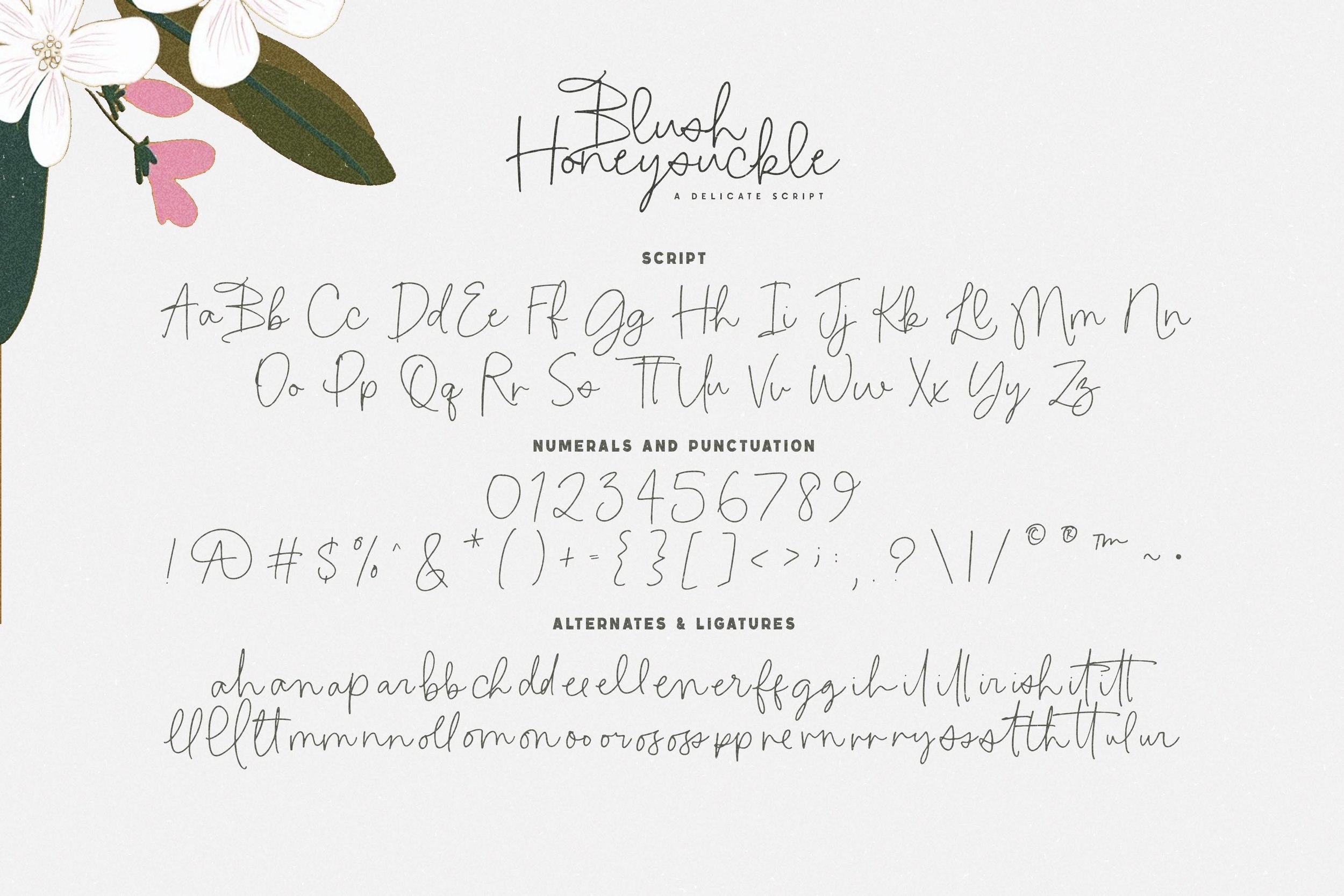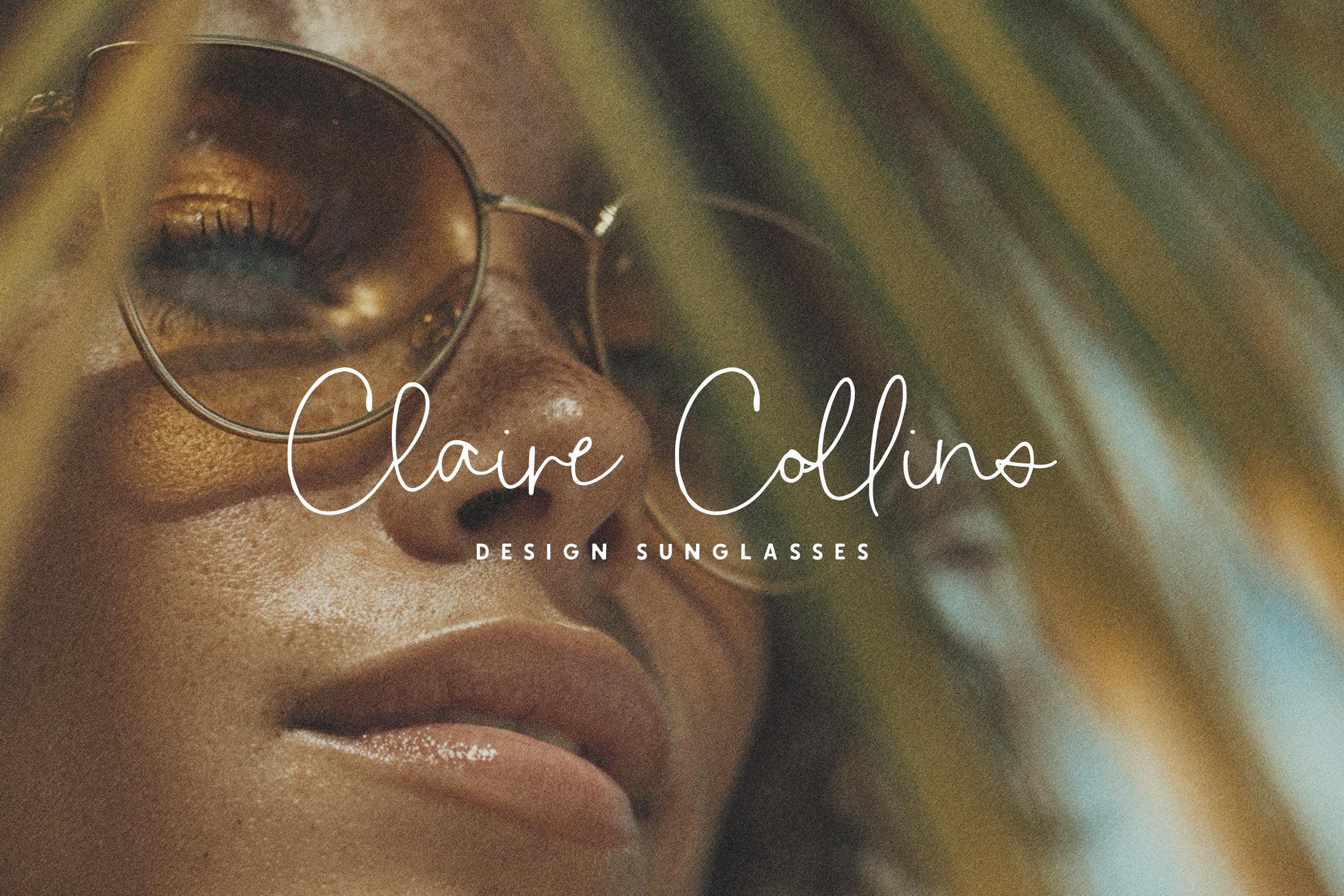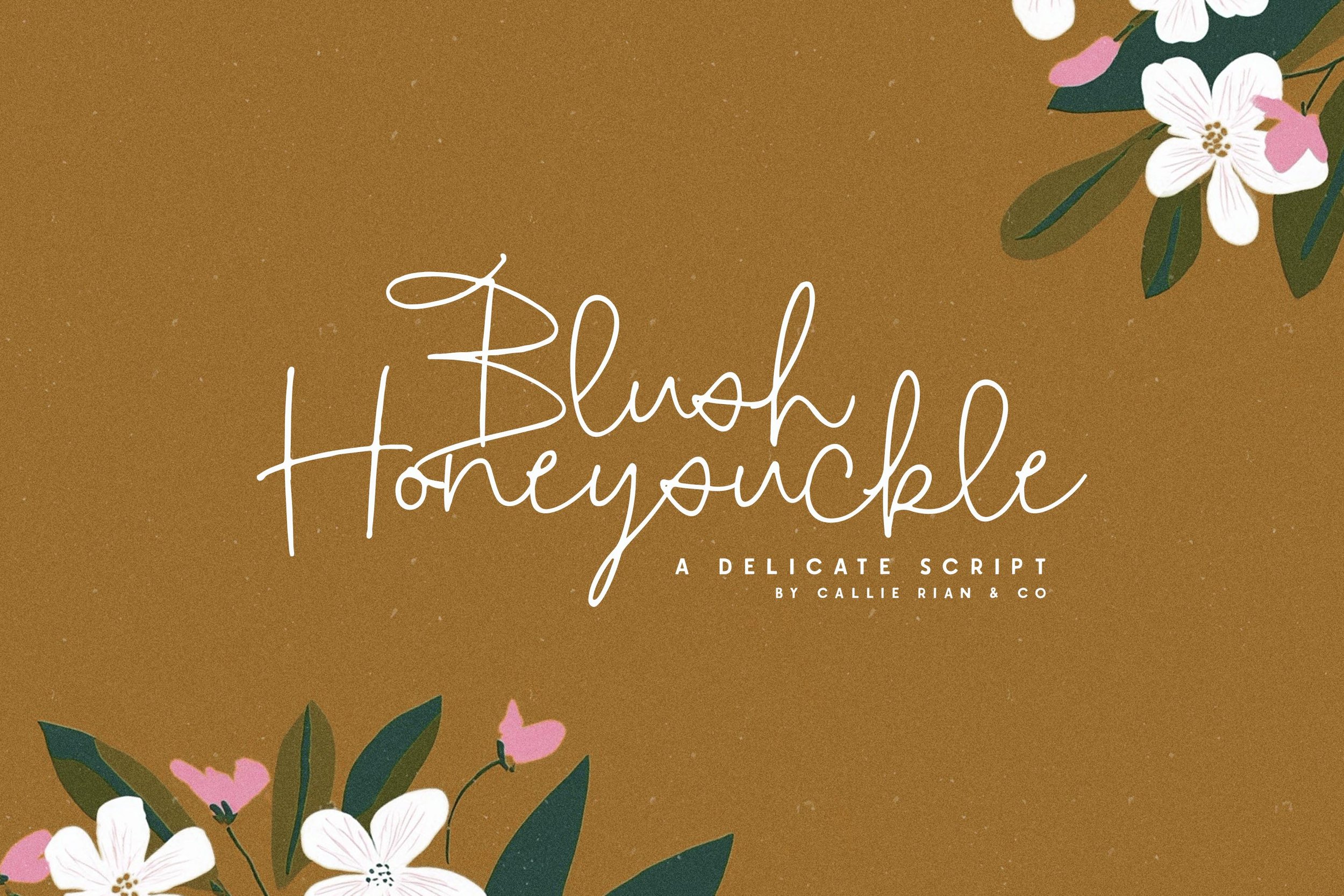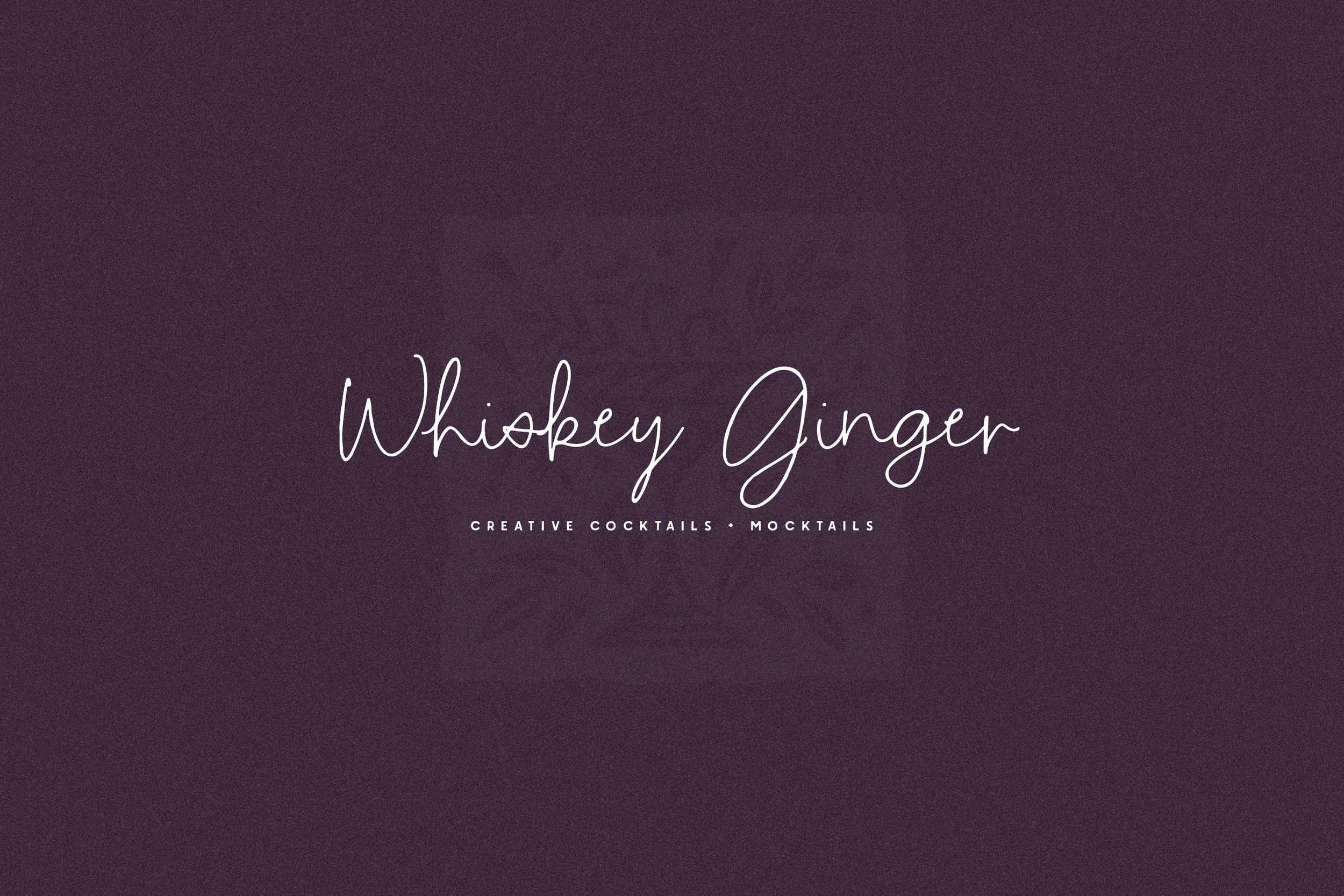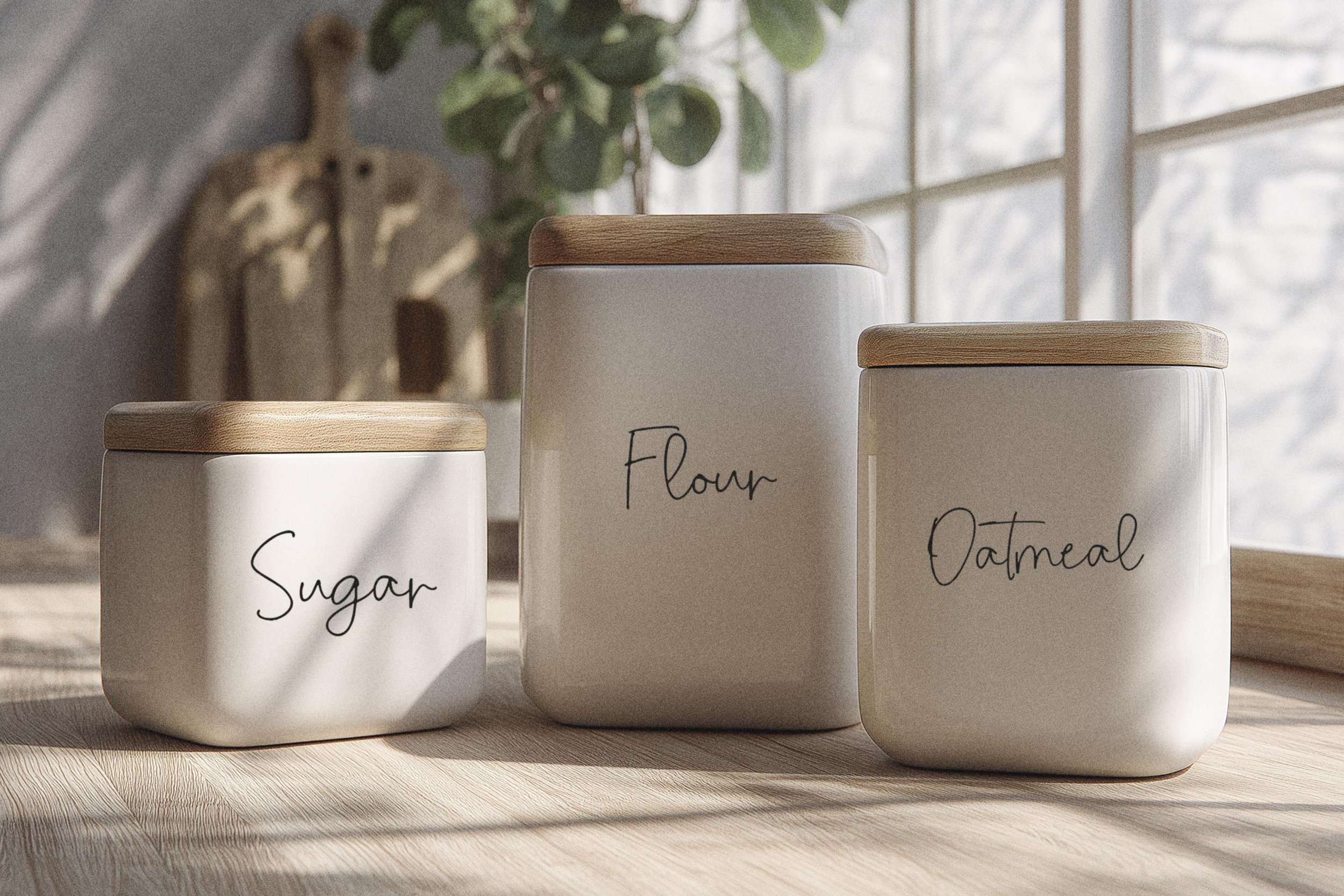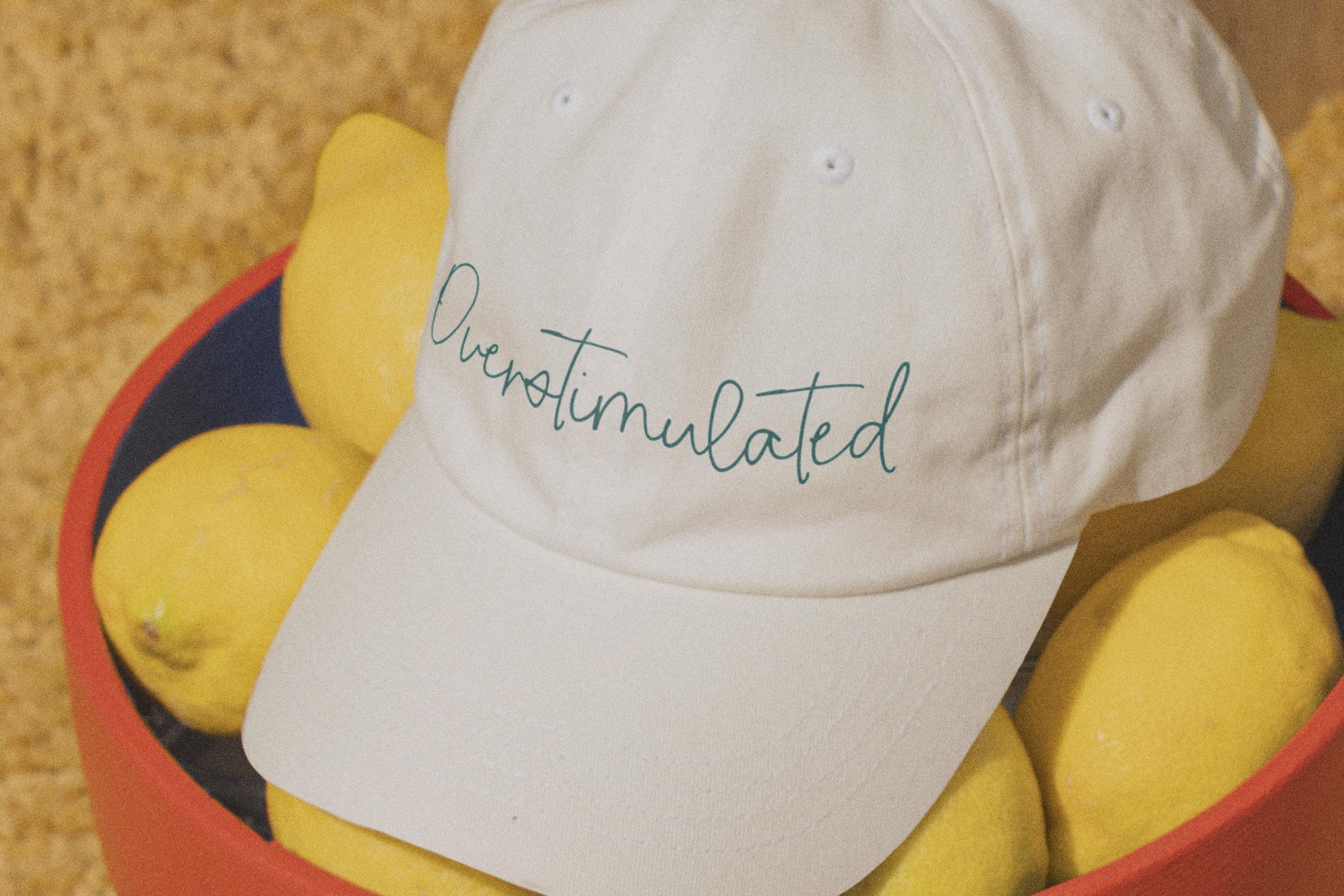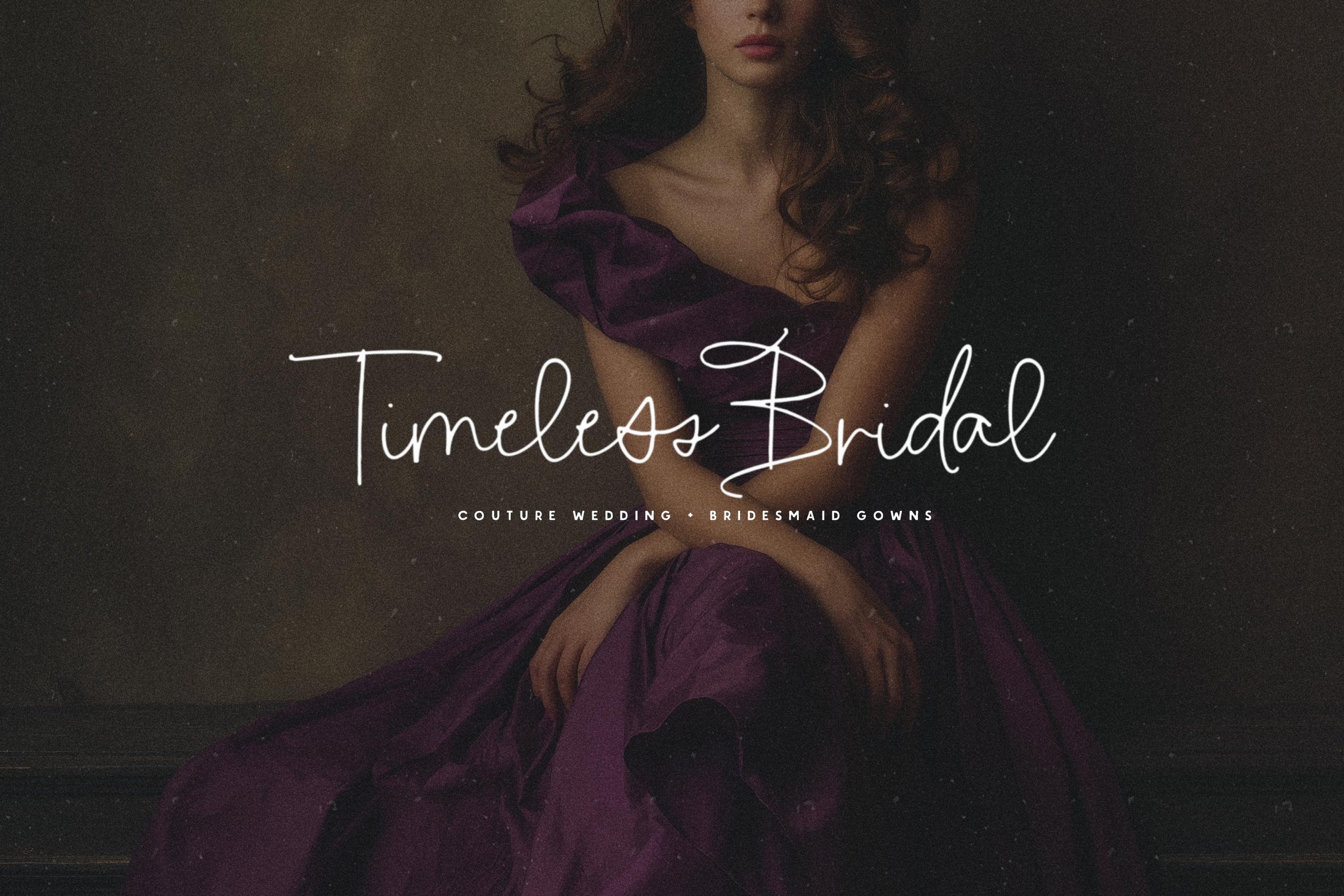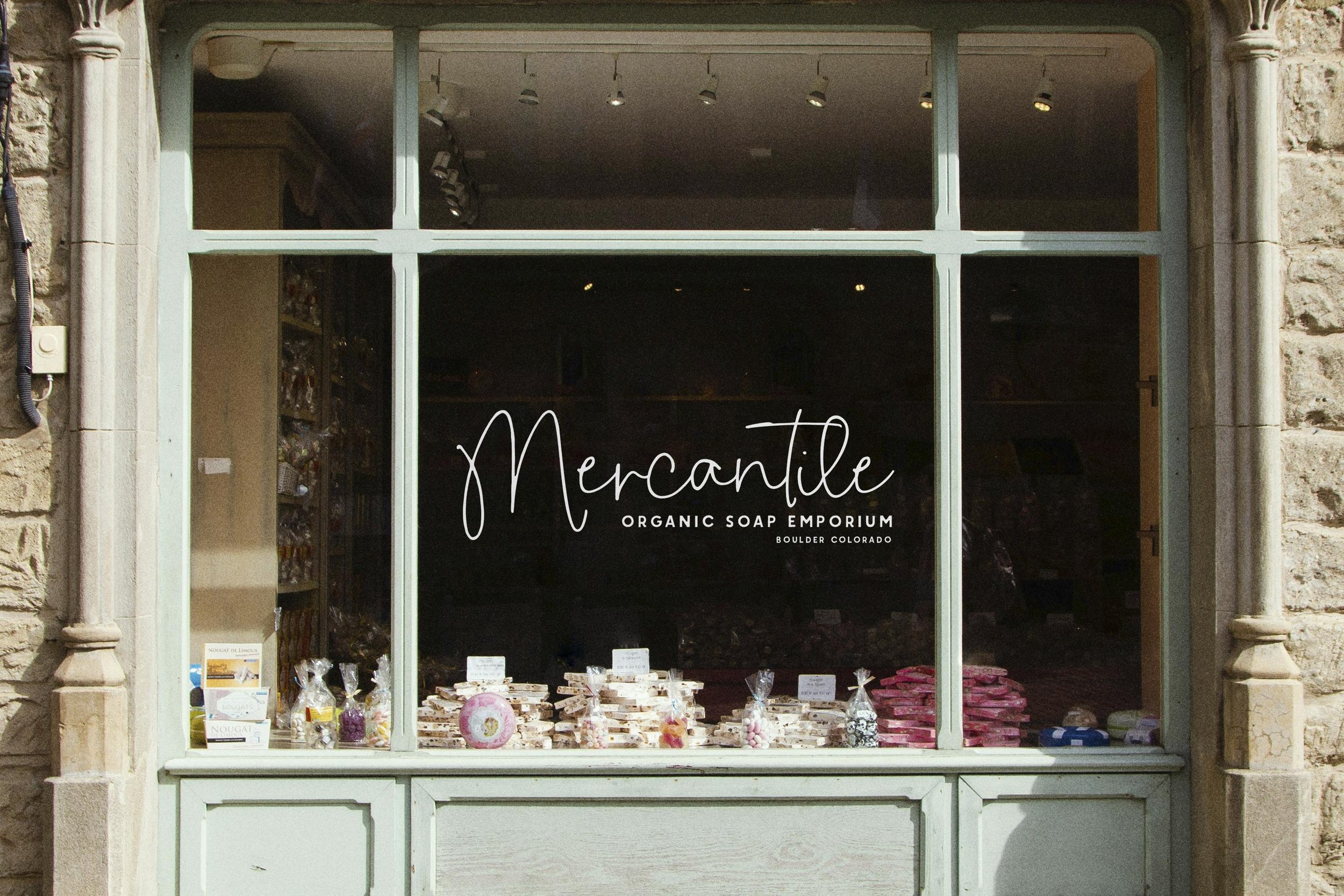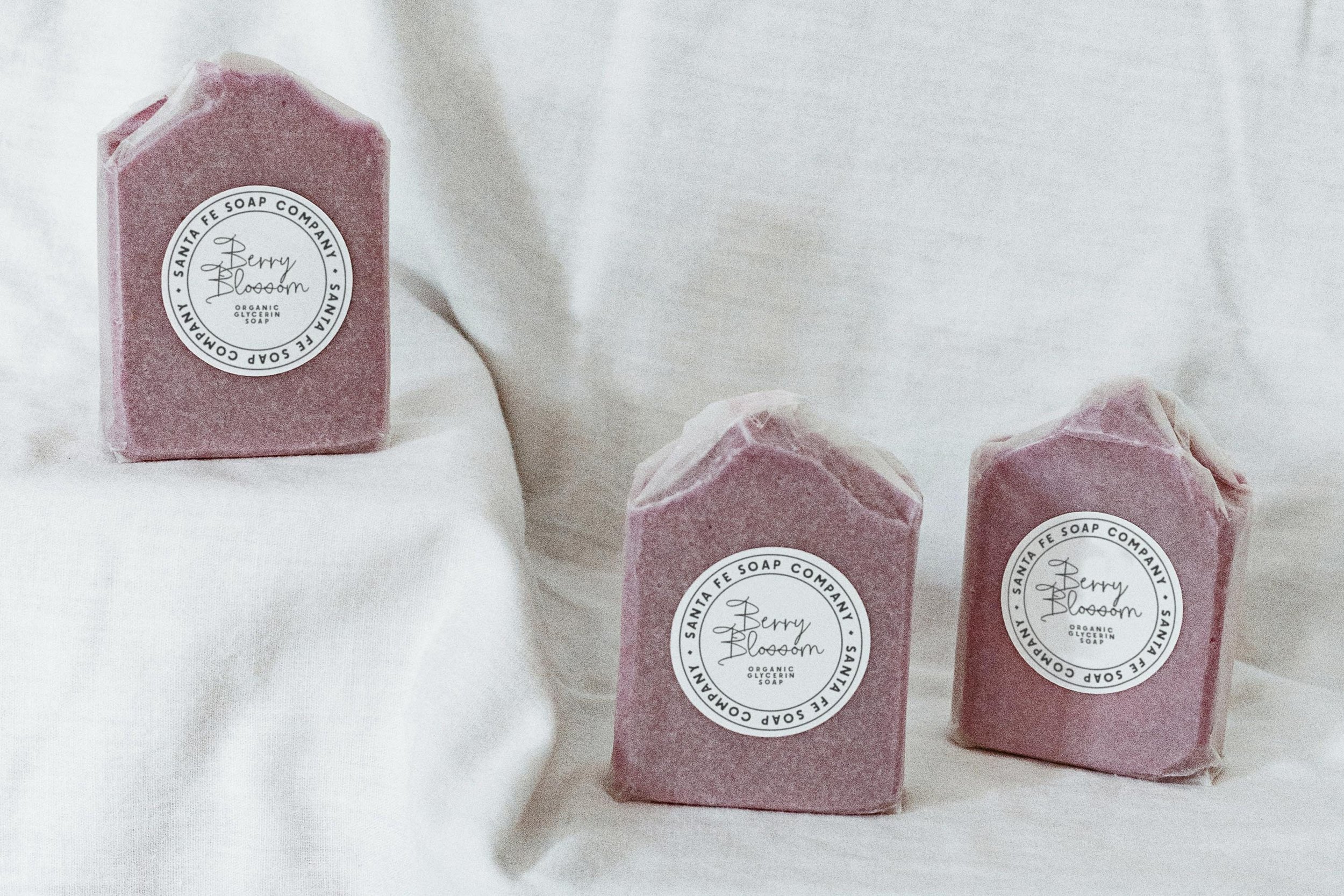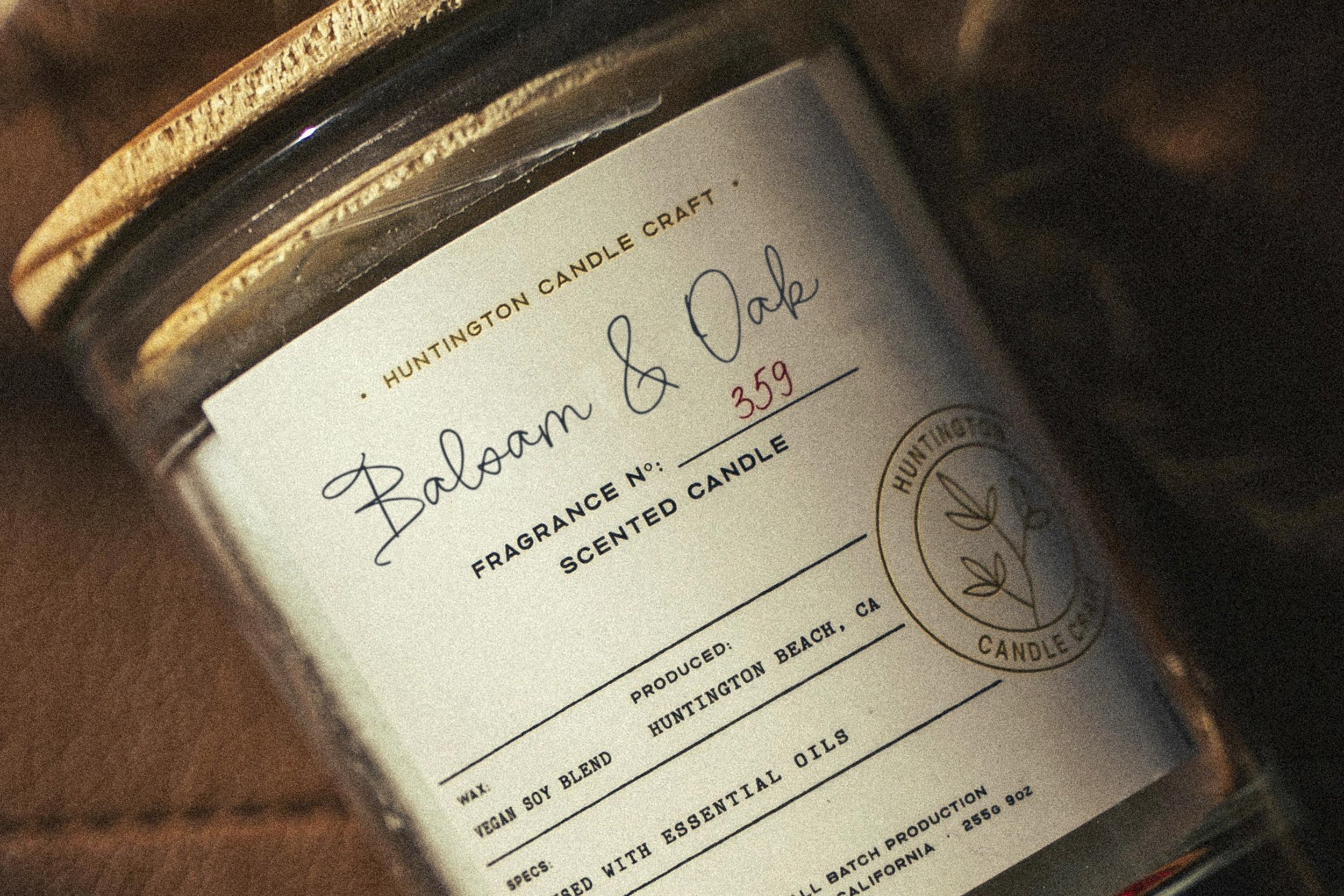
Here’s a sweet little script to celebrate Spring. Introducing, Blush Honeysuckle!
This delicately hand-drawn monoline script is darling for logos and branding, and is versatile enough for labels and packaging!
40+ Ligatures